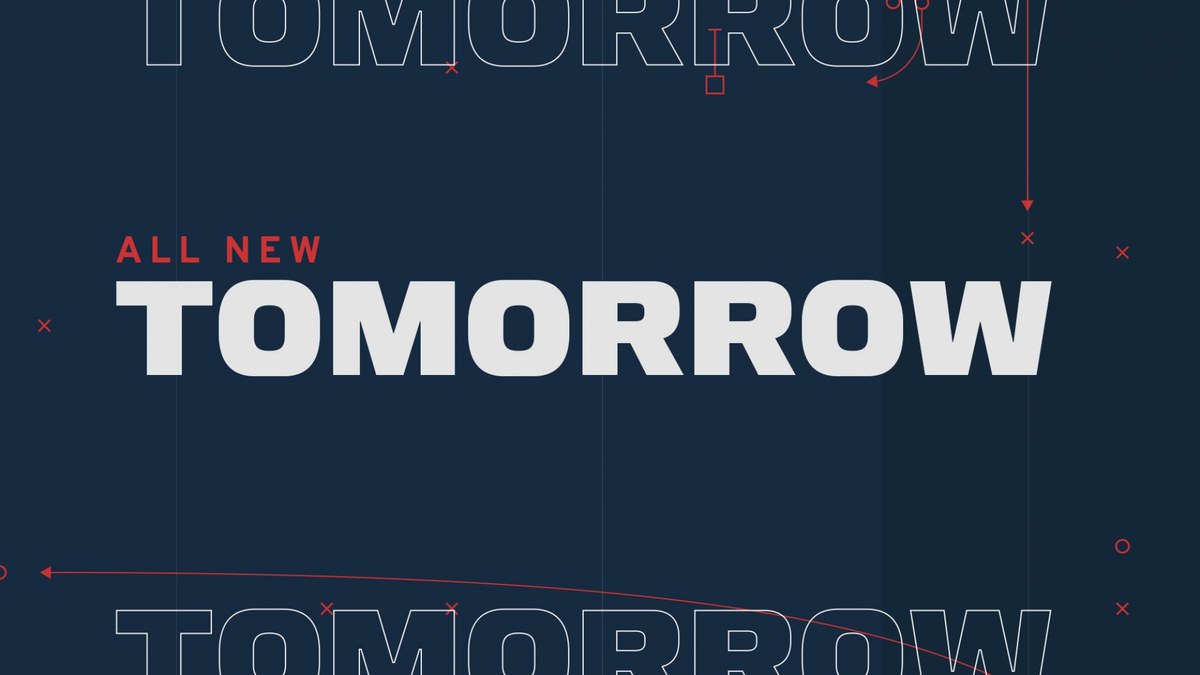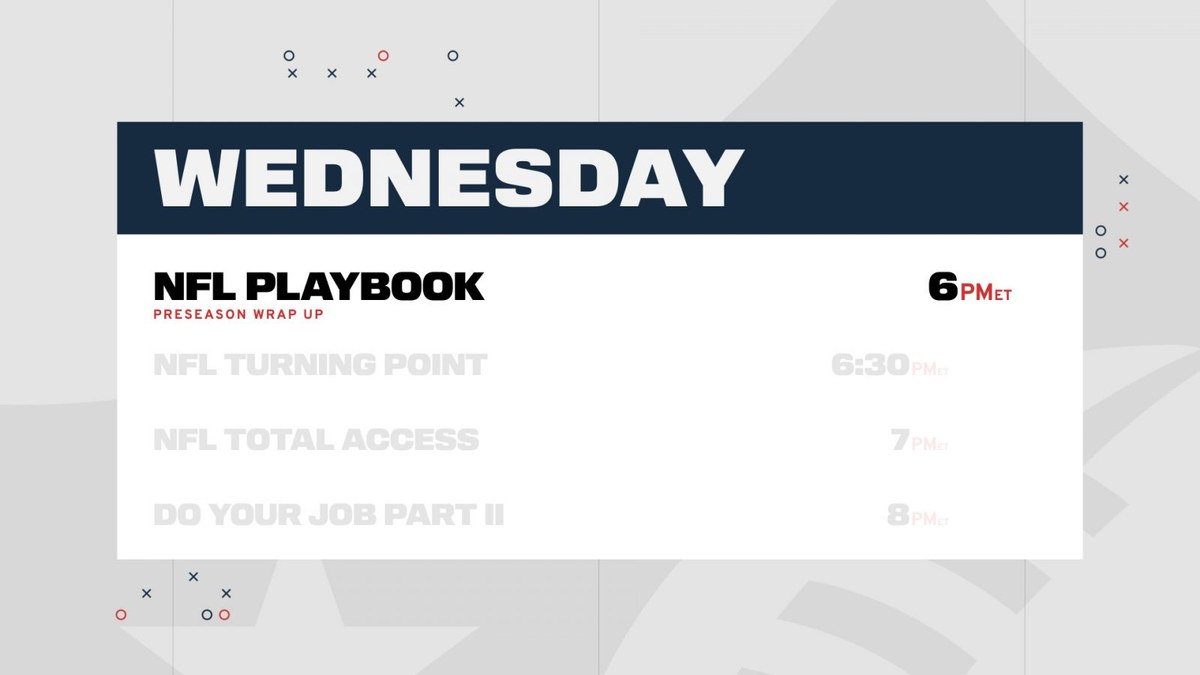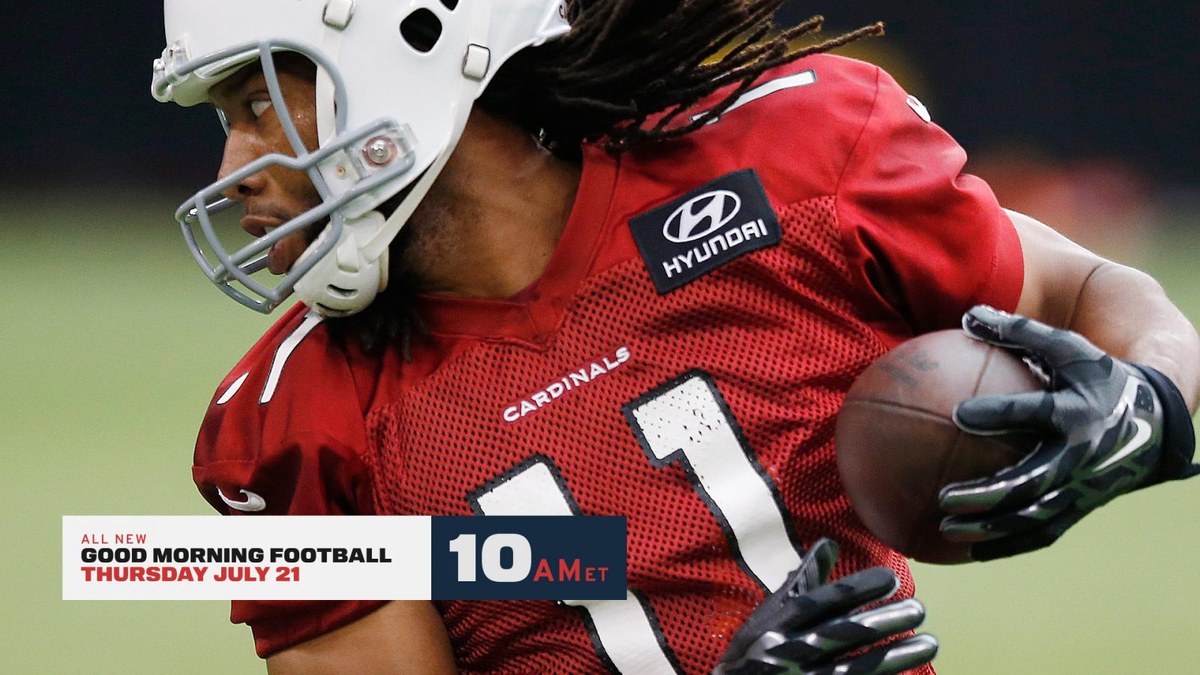
NFL Tackle for the NFL Network
In 2018, Miguel Reyes drew NFL Tackle, an all-caps sans serif in a single heavy weight, for a rebrand of the NFL Network by brading and motion design studio Trollback. Designed for tight tracking and tight leading, its curved characters are flat on all sides. Miguel’s intiial inspiration was an obscure all-caps sans serif called Montan, designed by Anna Maria Schildbach and issued by Stempel in 1954. Montan is unusual in that its inner forms are rounded while the outer corners are crisp. This effect fell by the wayside as the typeface got wider and heavier, but an echo of the pill-shaped counterforms remains in the round characters.